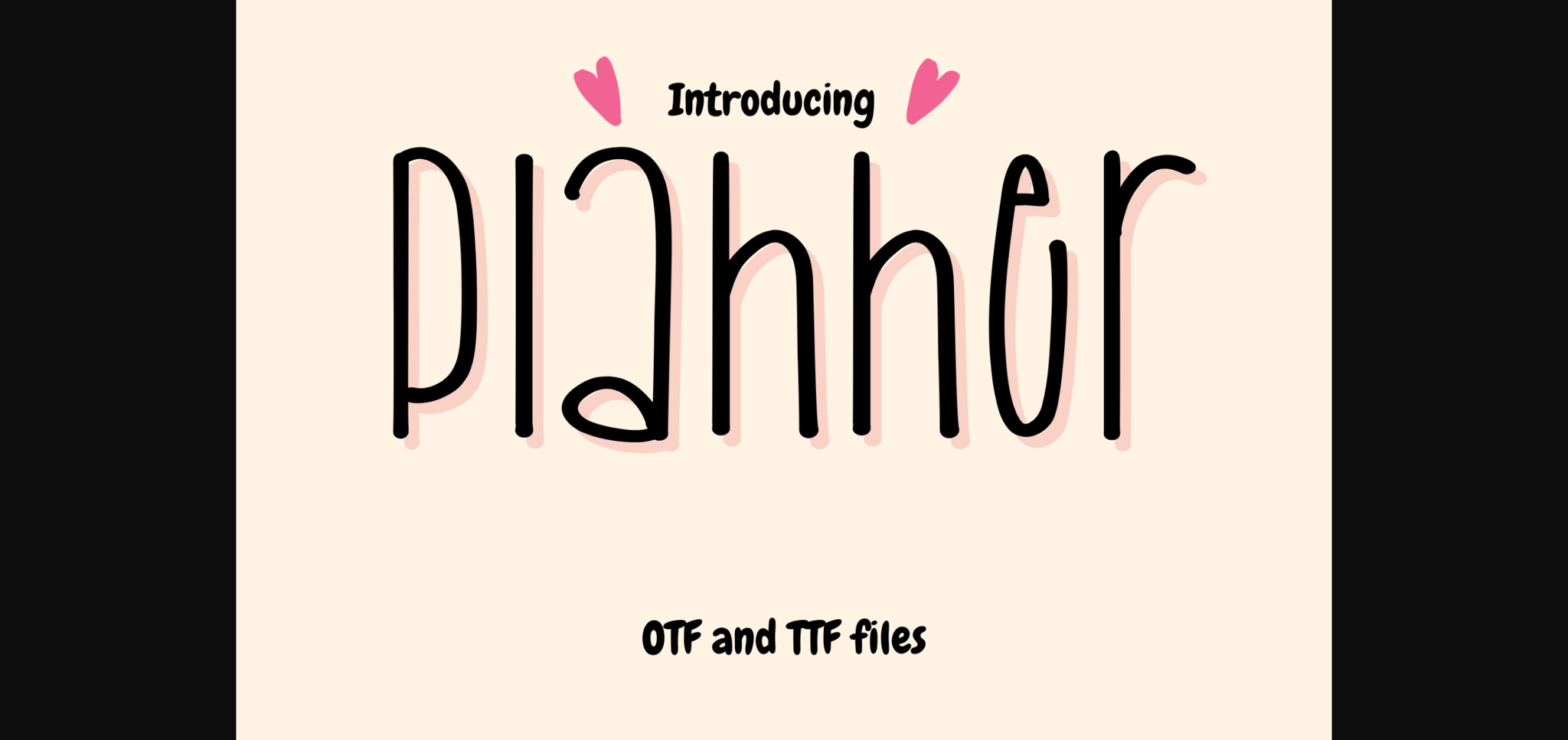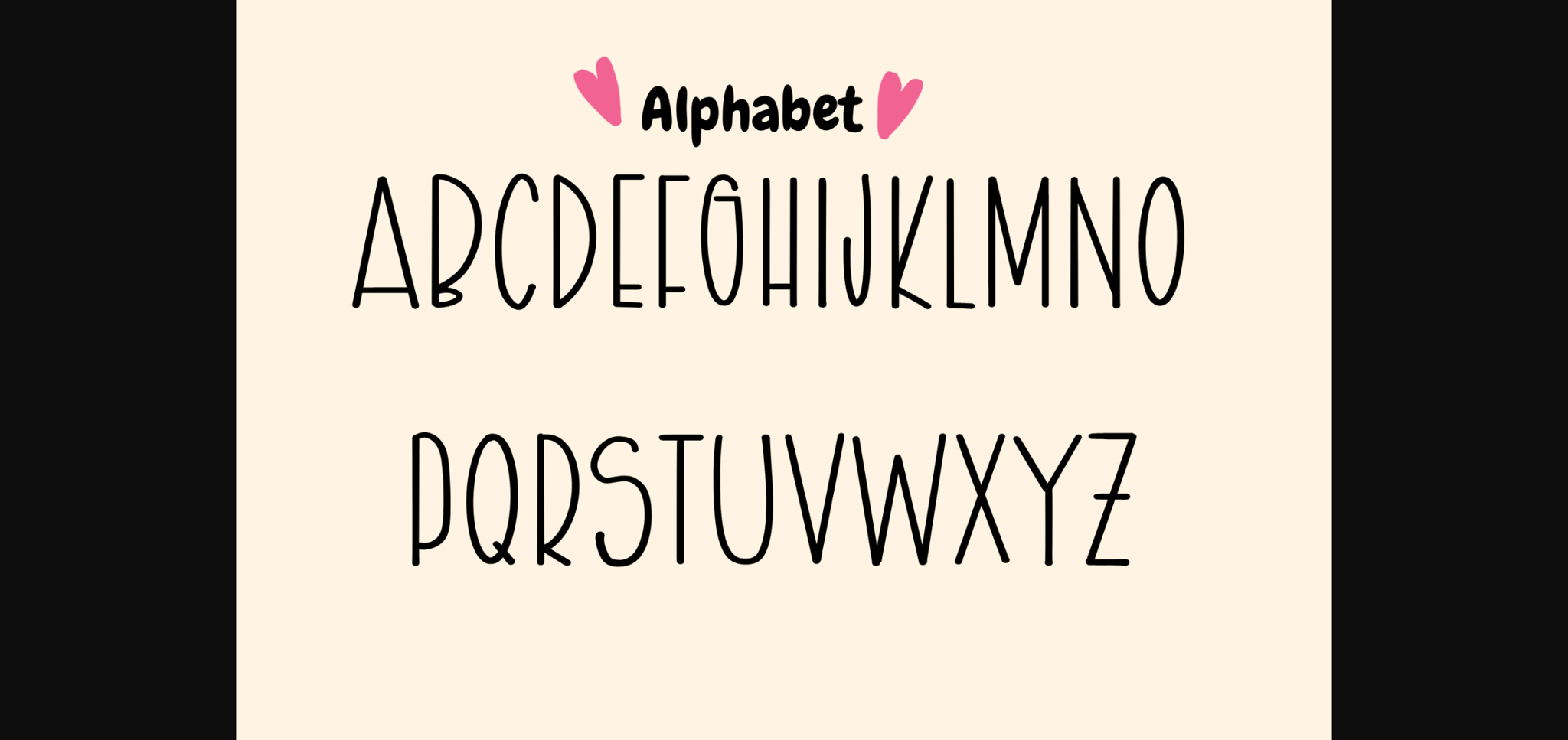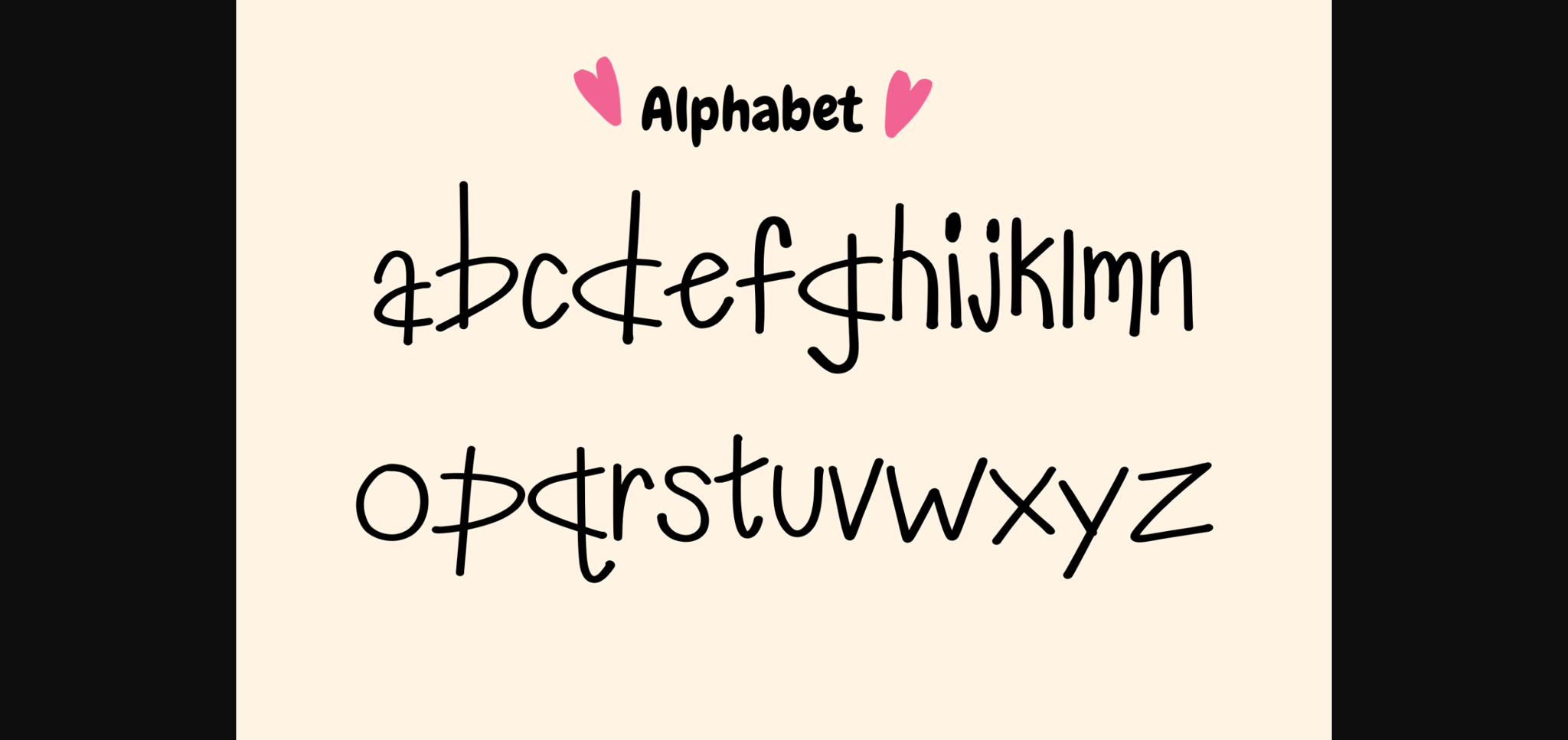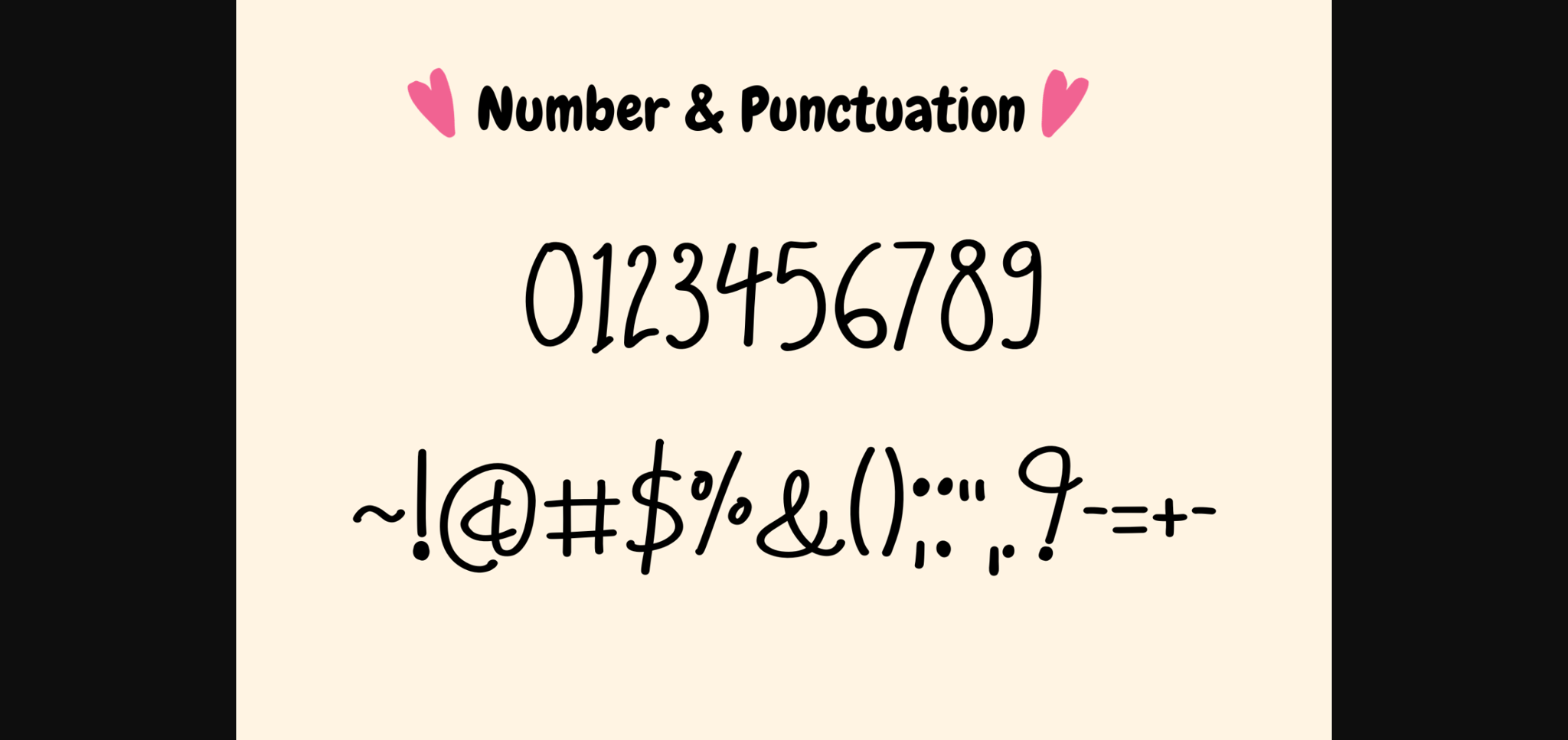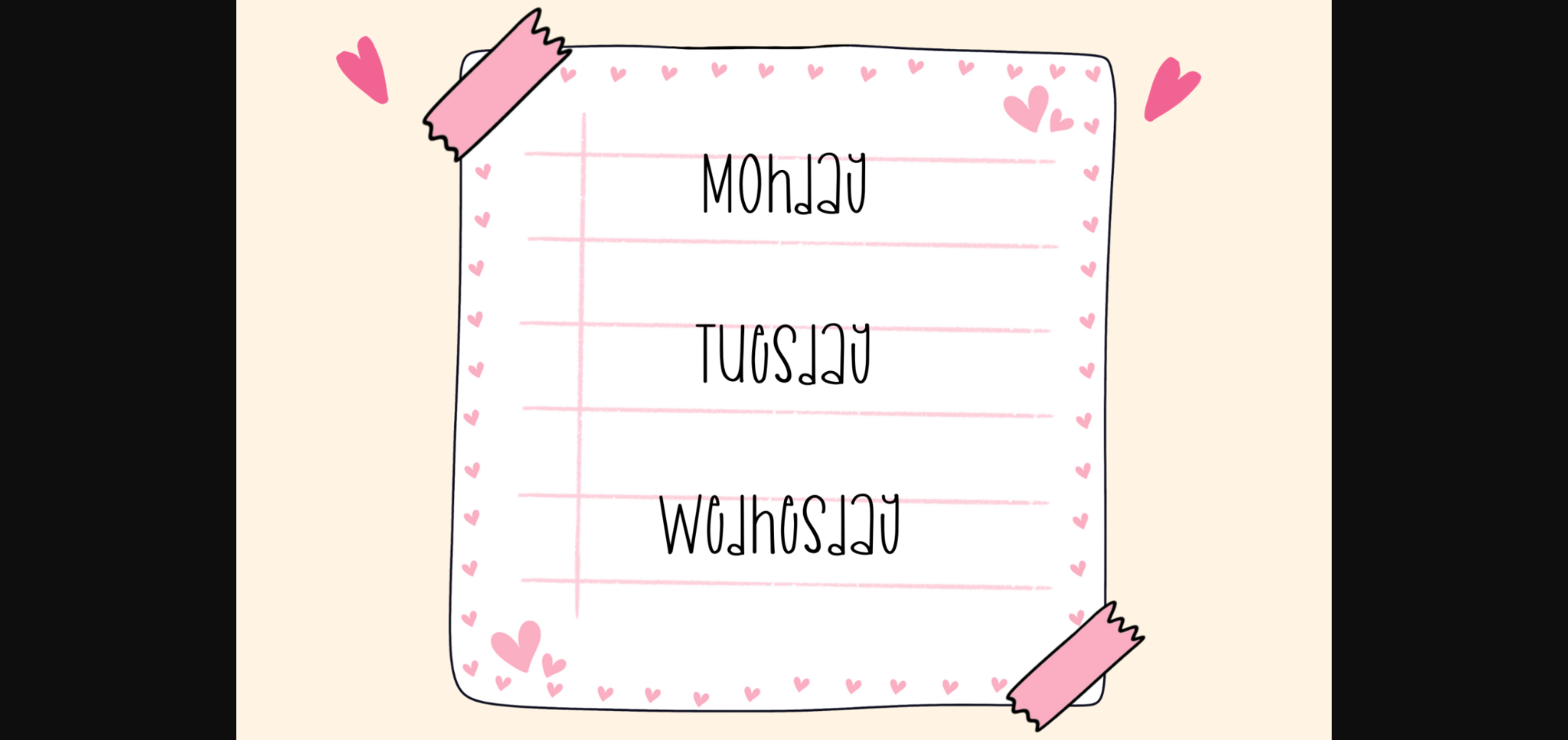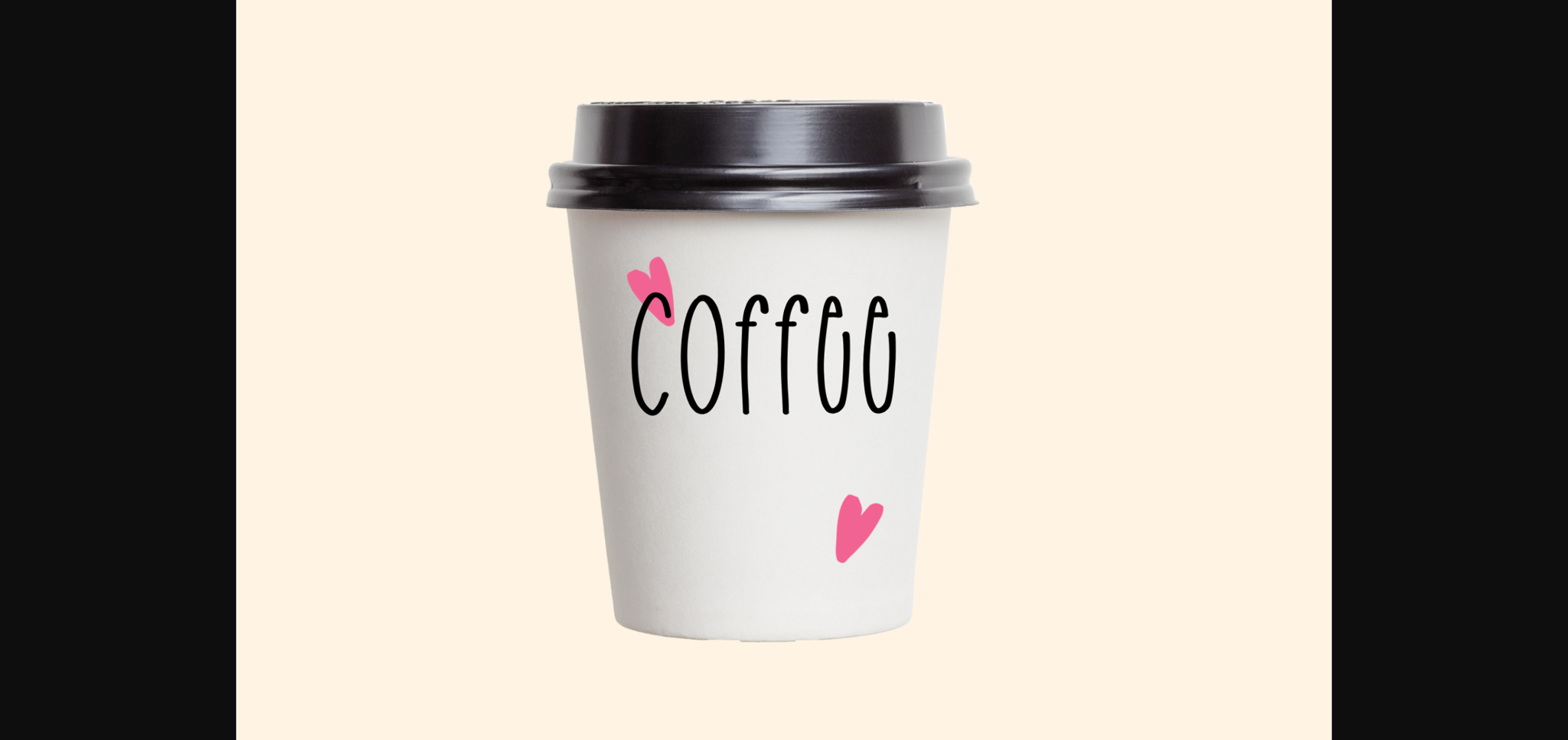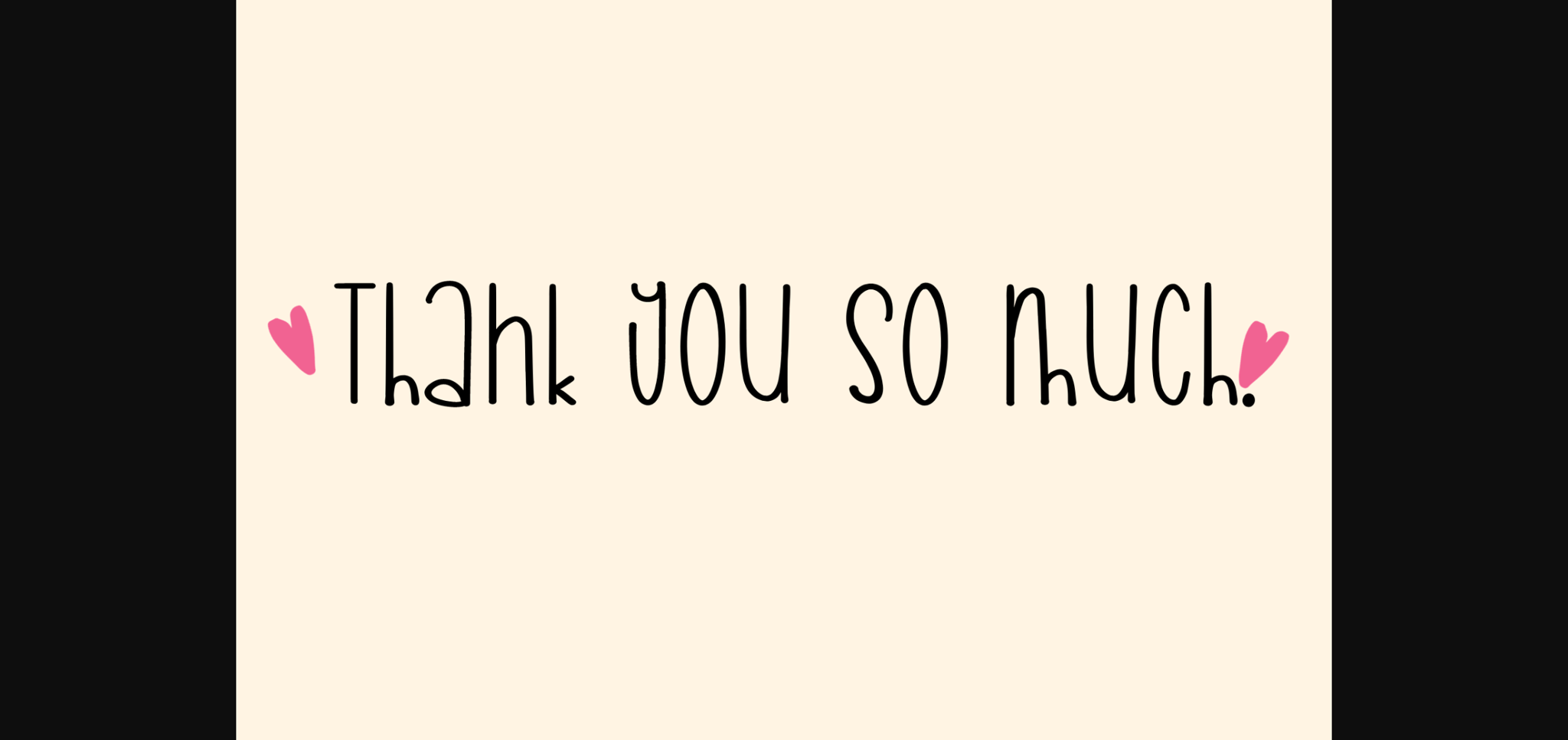
Planner Font
About Planner Font
Meet “Planner,” the tall handwritten display font that adds a touch of elegance to your projects. With its elongated and graceful letterforms, Planner is perfect for creating stylish and sophisticated designs. Ideal for planners, invitations, and creative projects that require a chic aesthetic, this font combines legibility with a hint of artistic flair. Elevate your typography with Planner, where height meets handwritten charm.